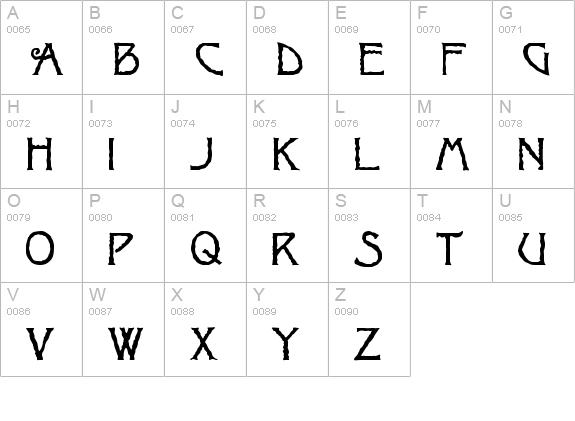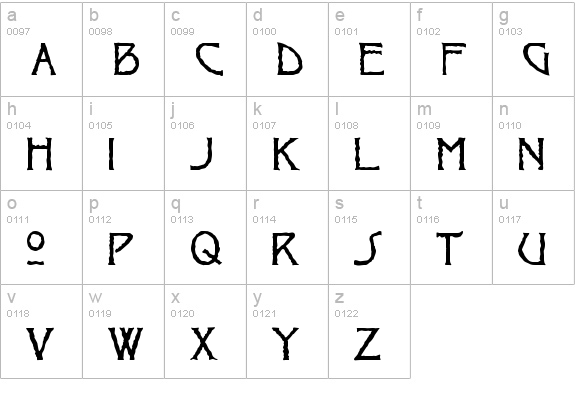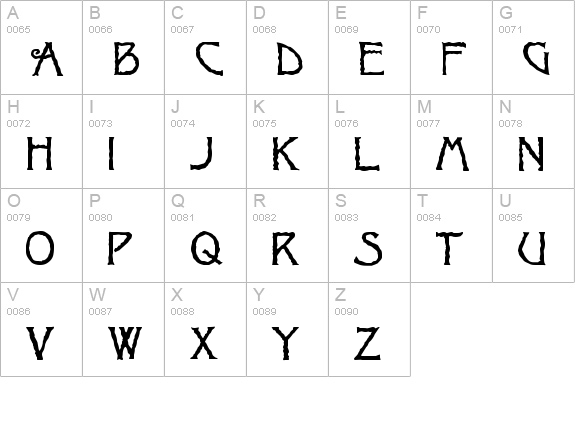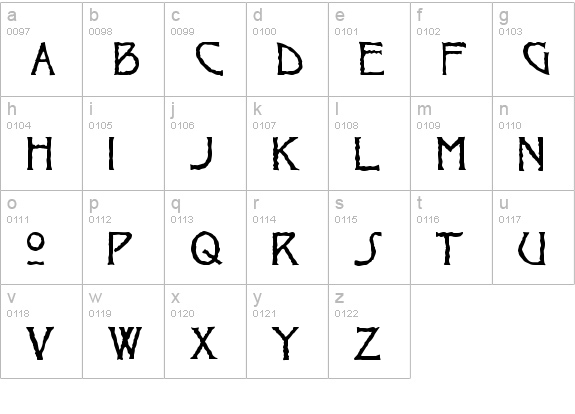
Ragged Regular Font Details
Ragged Regular is the standard, neutral variant in the Ragged typeface family \xE2\x80\x94 well suited to general body text, paragraphs, and standard typographic work.
Ragged Regular font is a stunning typeface that effortlessly combines elegance with a touch of playfulness. This versatile font is perfect for both professional and creative projects, as it adds a unique charm to any design. With its slightly irregular strokes and subtle imperfections, Ragged Regular font brings a handcrafted feel to your typographic creations. It captures the essence of handmade craftsmanship, making it ideal for branding, packaging, logos, and more. This font offers a wide range of character variations, allowing you to create captivating headlines, eye-catching posters, and captivating social media graphics. Whether you are designing for print or digital media, Ragged Regular font will make your text stand out. What's even better is that Ragged Regular font is free! Yes, you read that right. This incredible typeface can be freely downloaded at FontsMarket.com. Now you can enhance your designs without having to worry about breaking the bank. So why wait? Take advantage of this amazing opportunity to elevate your design projects with Ragged Regular font. Download it for free at FontsMarket.com and unlock a world of creative possibilities.